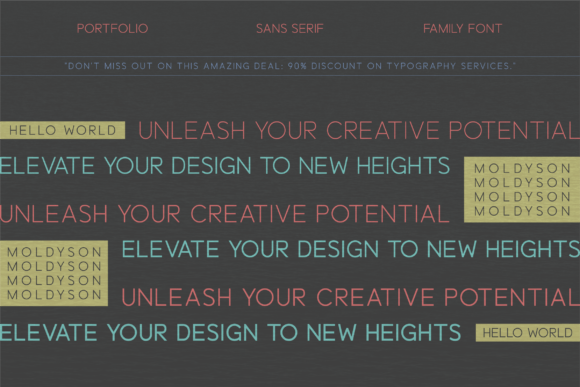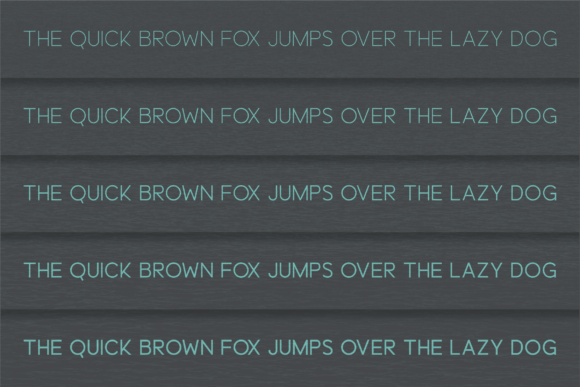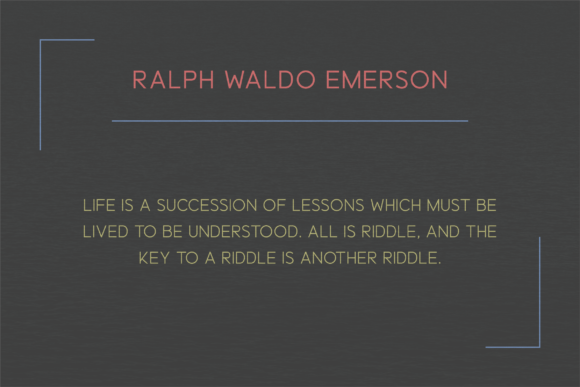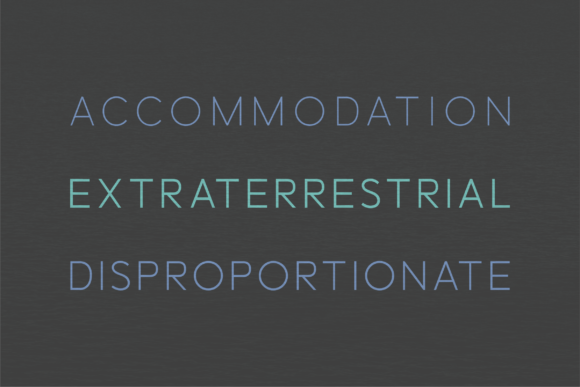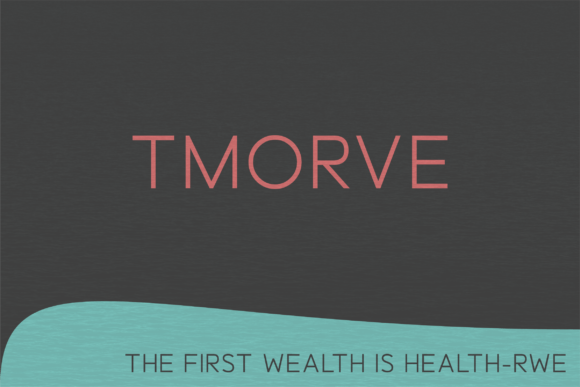
Introduction to Moldyson Font
Have you ever stared at a blank canvas, eager to bring a new creative project to life, only to be halted by the daunting task of choosing the perfect font? The moment of truth arrives when you finally find that elusive combination of style and sophistication that elevates your design to new heights. For designers, the search for the ideal font is a continuous journey, and we’re excited to introduce a game-changer – the Moldyson Font, a beautifully crafted sans serif collection that promises to revolutionize your creative endeavors.
With its 5 unique weights and sleek design, the Moldyson Font is poised to become your go-to design resource for a wide range of projects. Whether you’re working on a magazine spread, a logo design, or a film poster, this high-quality font will help you achieve that perfect balance of simplicity and sophistication that sets your design apart.
Key Features of Moldyson Font
- Unique blend of vintage and modern elements, perfect for creative projects.
- Comes in a transparent background design, allowing for seamless integration with any design resource.
- Includes a comprehensive set of characters, including uppercase and lowercase letters, numbers, and punctuation marks.
- Designed to be highly legible, making it an excellent choice for body text, headings, and titles in various creative projects.
- Supports a wide range of languages, including Latin-based alphabets and Cyrillic scripts.
Honest Review: Moldyson Font
I recently had the chance to try out the Moldyson Font, a design resource that’s been making waves in the creative project community. Overall, I was pleasantly surprised by its potential, but there are some limitations that might make it less appealing to certain designers.
- ✨ The Moldyson Font is incredibly versatile, with a wide range of styles and weights that can be used for a variety of creative projects.
- ✨ The high quality of the font is evident, with crisp lines and detailed textures that make it perfect for use in high-resolution designs.
- ✨ The transparent background feature allows designers to easily use the font on any background, making it a valuable asset for designers who need flexibility in their projects.
- ⚠️ The font is limited in its character set, making it less suitable for complex or long-form projects.
Overall, I think the Moldyson Font is a great resource for designers who are looking for a high-quality, versatile font for their creative projects. While it may have some limitations, it’s definitely worth checking out for designers who are looking for a free design resource with a lot of potential.
The Moldyson Font is a high-quality design resource perfect for creative projects that require a unique and eye-catching look. With its transparent background, this font is ideal for adding depth and visual interest to your designs.